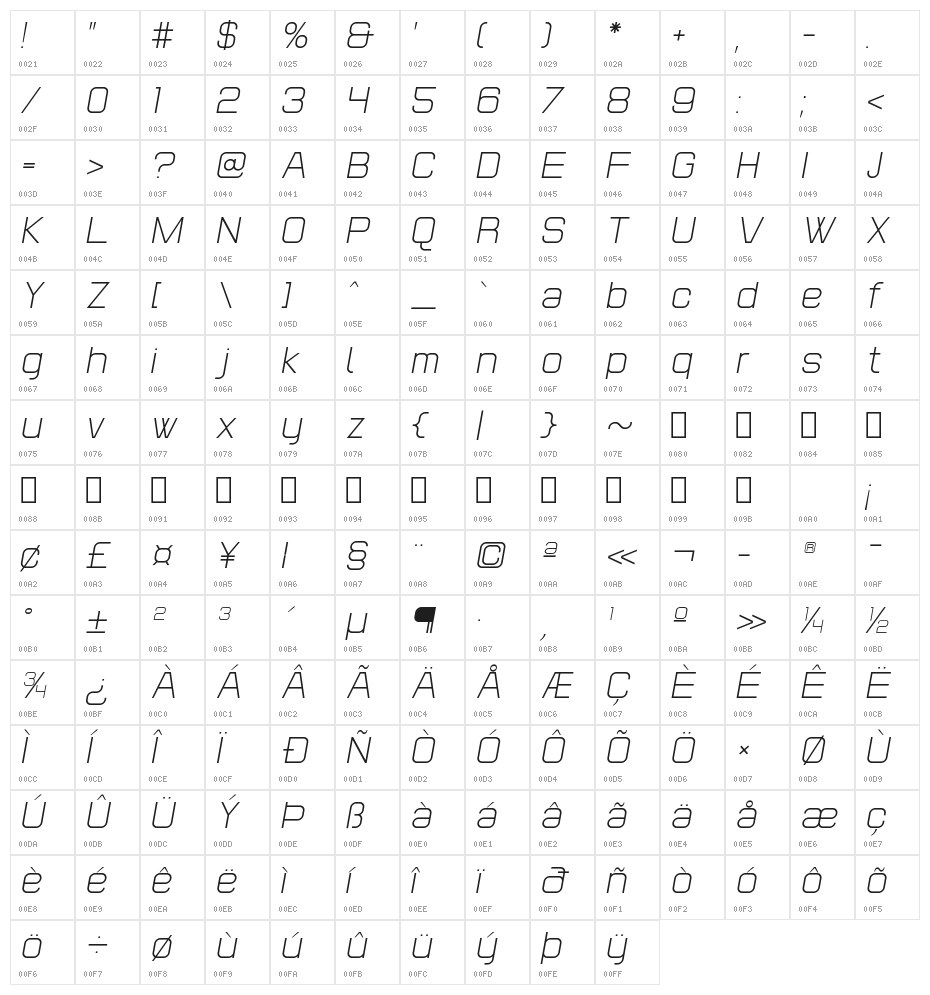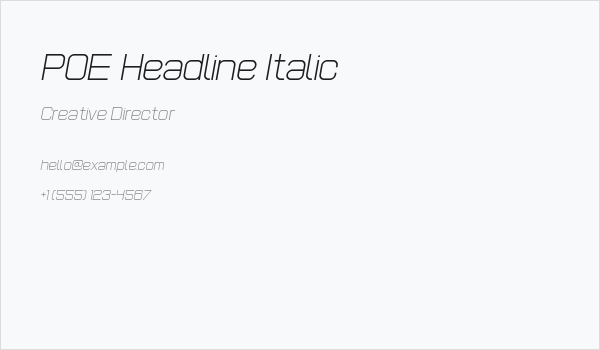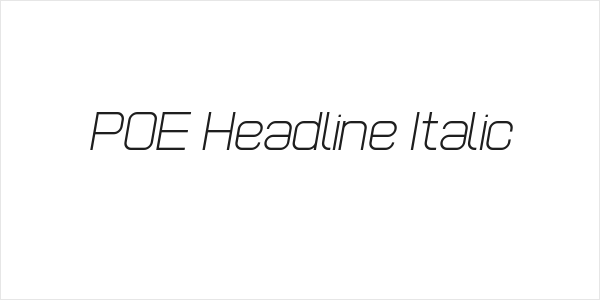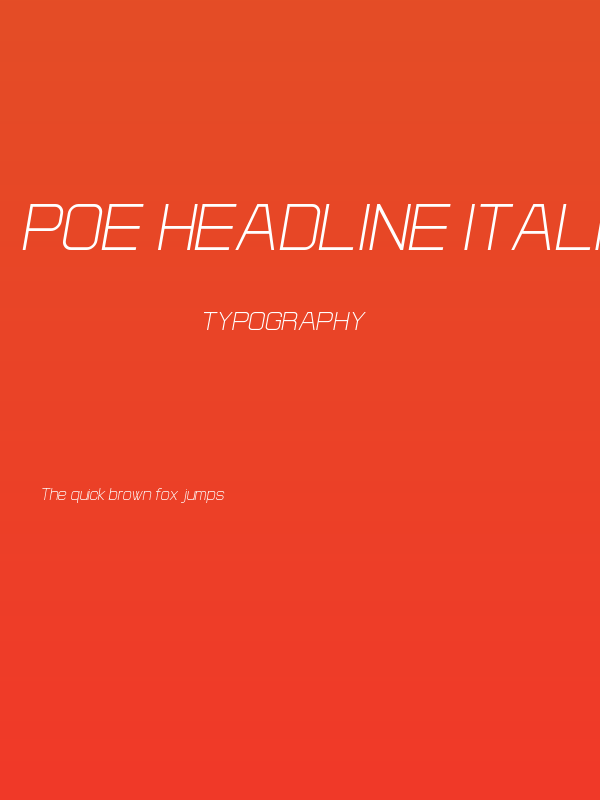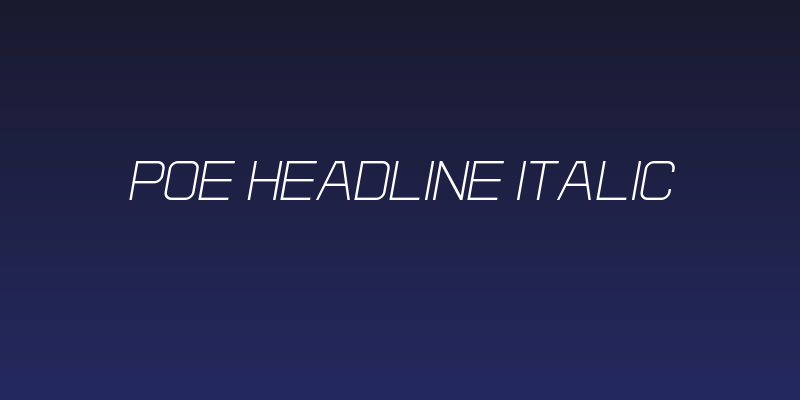
POE Headline Italic Font
POE Headline Italic Description
This font exhibits a sleek, modern design with a distinct italic slant, giving it a dynamic and forward-moving appearance. The characters are crafted with a geometric precision, featuring clean lines and a uniform stroke width that conveys a sense of elegance and sophistication. The uppercase and lowercase letters maintain a consistent style, while the numerals and special characters complement the overall aesthetic. The font's structure is open and airy, making it highly legible even at smaller sizes. Its contemporary style is ideal for projects that require a touch of modernity and professionalism.
| Proposed Projects | Ideal for branding, advertising, digital media, and editorial design projects. |